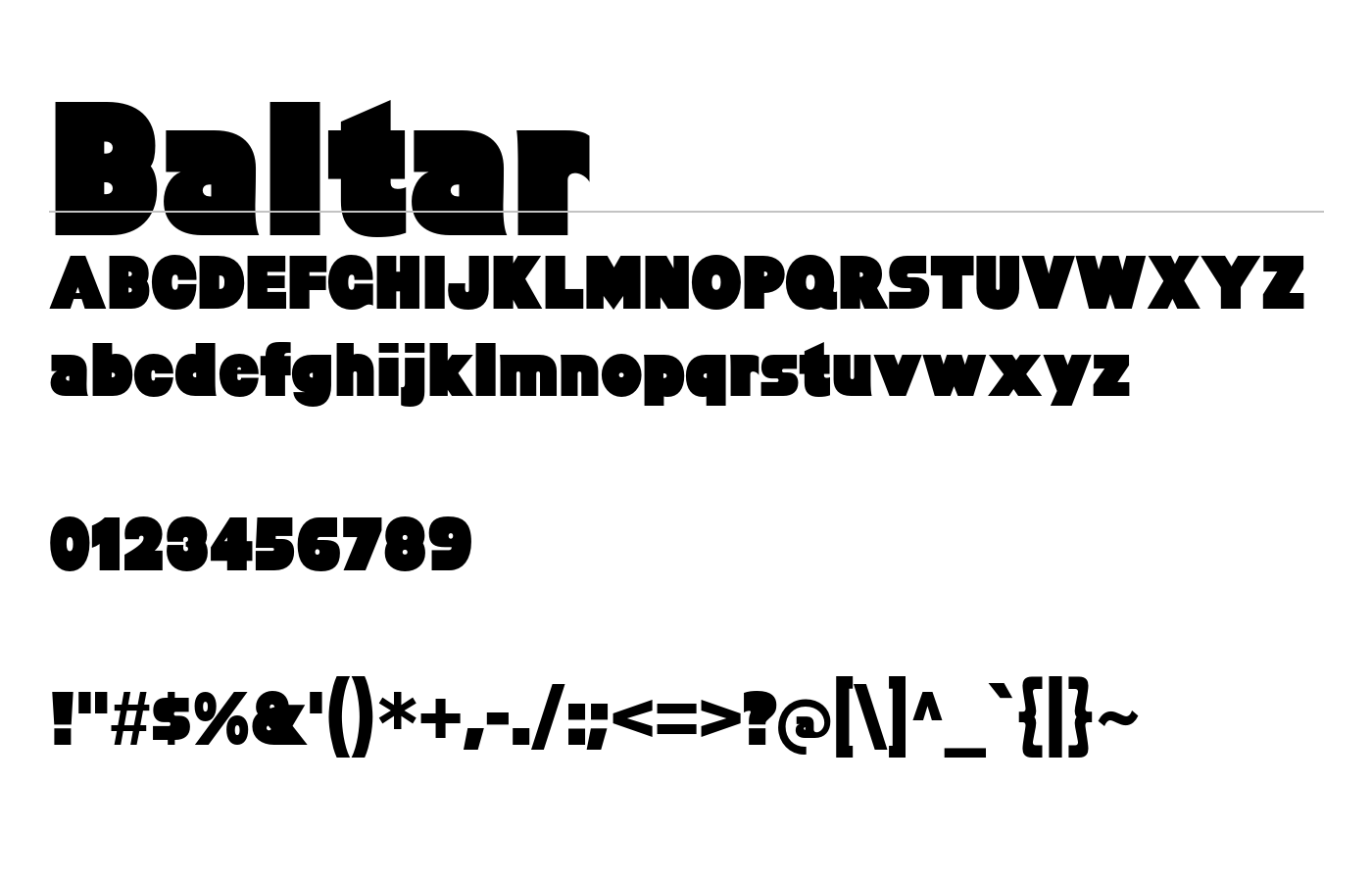
Baltar is a bold, heavy sans serif font with a strong, blocky presence and a slightly condensed width, giving it a sturdy and impactful look. Its thick strokes feature minimal contrast and sharp edges, which make it ideal for attention-grabbing headlines, logos, and branding projects that need a confident, modern, and solid feel. This font is best suited for designs where boldness and clarity are key, such as posters, packaging, and display uses.
Baltar Font
About Baltar Font
| Font family | Baltar Font |
| Designer | Ray Larabie |